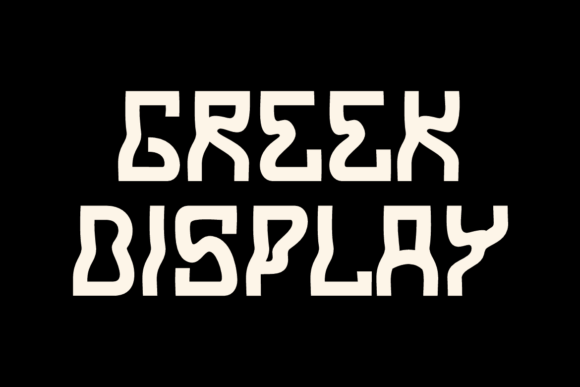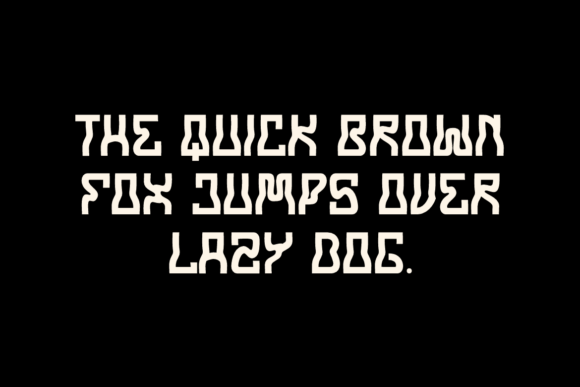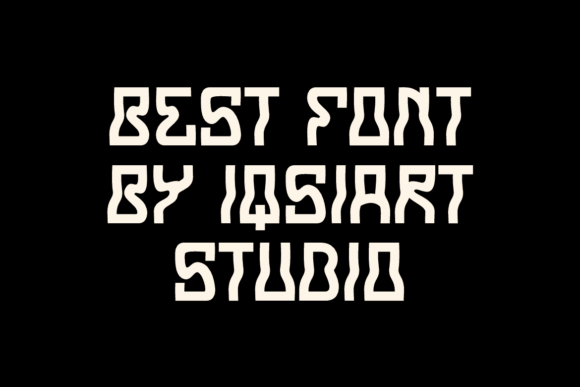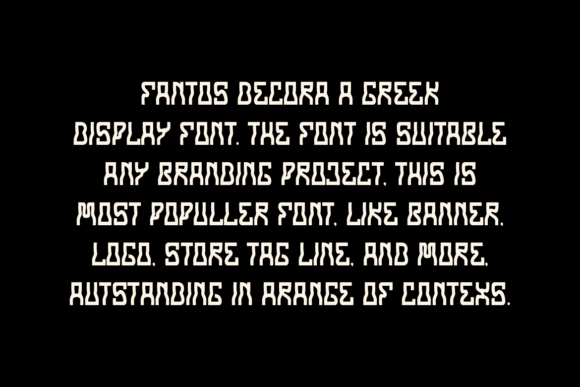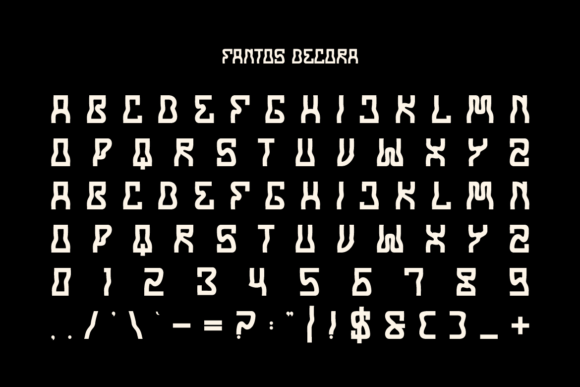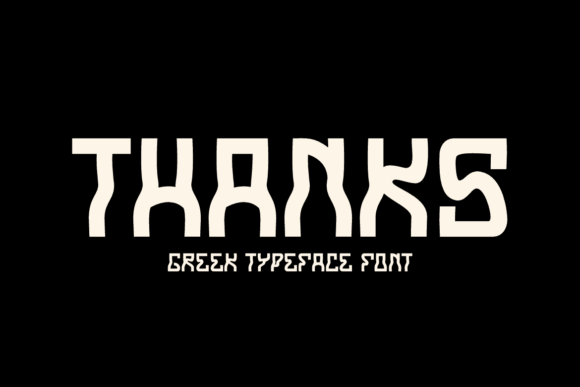
Fantos Decora Font: A Timeless Greek-Inspired Typeface
In the world of typography, few fonts manage to convey the essence of classical elegance and timeless strength. Fantos Decora, a striking Greek-inspired typeface, is one such font that has captured the attention of designers and crafters alike. With its unique blend of ornamental flair and architectural structure, Fantos Decora is ideal for a variety of applications, including editorial headlines, museum branding, and themed graphics.
The Inspiration Behind Fantos Decora
Fantos Decora draws inspiration from ancient Greek typography, characterized by its rigid symmetry and decorative curves. The font’s design is rooted in the classical ideals of balance and proportion, making it perfect for projects that require a sense of grandeur and sophistication. The ornamental flair of Fantos Decora adds a touch of elegance, setting it apart from more traditional typefaces.
Key Features of Fantos Decora
Fantos Decora boasts several key features that make it an attractive choice for designers:
- Rigid Symmetry: The font’s symmetrical structure gives it a sense of stability and balance, making it ideal for headlines and titles.
- Decorative Curves: The elegant curves and flourishes add a touch of sophistication and elegance to the font.
- Architectural Structure: The font’s architectural structure gives it a sense of strength and solidity, making it perfect for projects that require a sense of grandeur.
Use Cases for Fantos Decora
Fantos Decora is a versatile font that can be used in a variety of applications, including:
- Editorial Headlines: The font’s bold, majestic impression makes it perfect for use in editorial headlines, adding a touch of elegance and sophistication to any publication.
- Museum Branding: Fantos Decora’s classical inspiration and ornamental flair make it an excellent choice for museum branding, conveying a sense of history and culture.
- Themed Graphics: The font’s unique blend of symmetry and decorative curves makes it ideal for themed graphics, such as logos, posters, and brochures.
Why Choose Fantos Decora?
With so many fonts available, why choose Fantos Decora? Here are a few reasons:
- Timeless Elegance: Fantos Decora’s classical inspiration ensures that it will remain timeless and elegant, even as design trends evolve.
- Versatility: The font’s versatility makes it suitable for a wide range of applications, from editorial headlines to themed graphics.
- Strong, Majestic Impression: Fantos Decora’s bold, majestic impression is sure to grab attention and make a lasting impression.
Fantos Decora is a striking Greek-inspired typeface that combines rigid symmetry with decorative curves for a strong, majestic impression. With its timeless elegance, versatility, and classical inspiration, it is an excellent choice for designers and crafters looking to add a touch of sophistication and grandeur to their projects. Whether you’re working on editorial headlines, museum branding, or themed graphics, Fantos Decora is sure to make a lasting impression.
With its unique blend of classical inspiration and ornamental flair, Fantos Decora is sure to become a go-to font for designers and crafters looking to add a touch of elegance and sophistication to their projects.